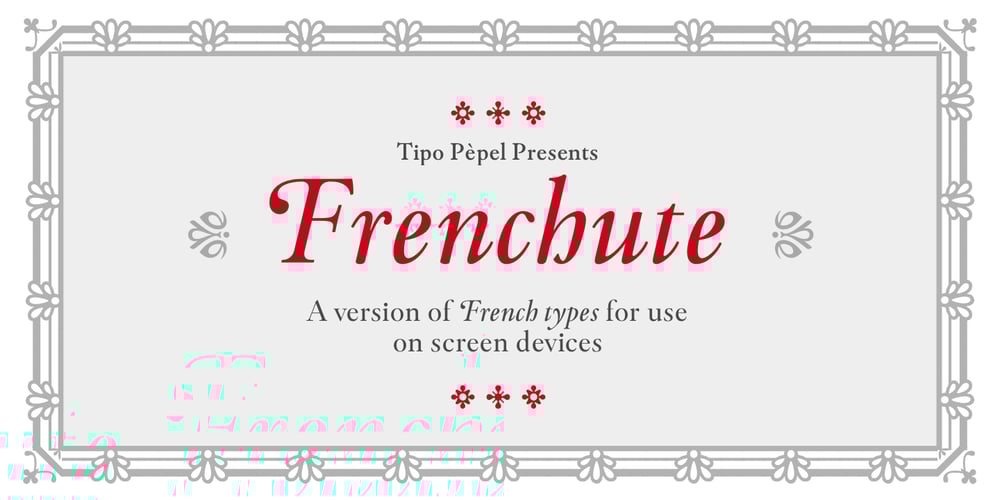
Frenchute Font Family was designed by Josep Patau Bellart and published by Tipo Pèpel. Frenchute contains 36 styles and family package options. France 1727, the book Le chemin Royal de la Croix is published. Centuries later the historical publication comes into the hands of Josep Patau, who uses its printed pages as a reference for a new digital typeface. Previously created for printing, those shapes adapt now to the screen and show the sophistication and authenticity of true Garalde types.Frenchute is a multipurpose typeface with 3 optical sizes. All the shapes were modified to cover different typographic needs. The diagonal axis and the moderate stroke contrast are taken further in the italics letterforms, where the design is far more expressive. The character set includes decorative forms and italic capitals with swashes, so the text looks prettier.